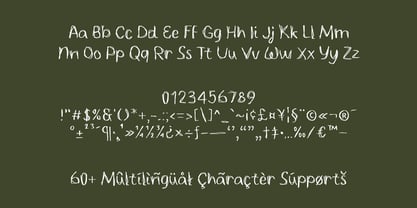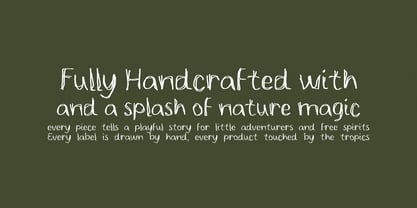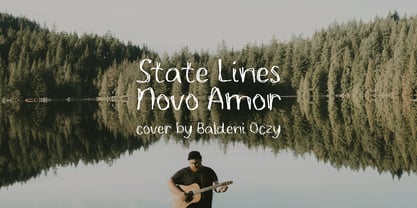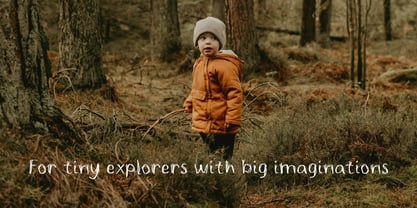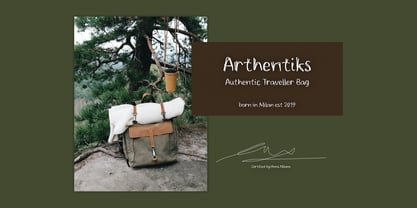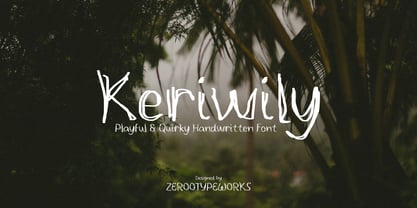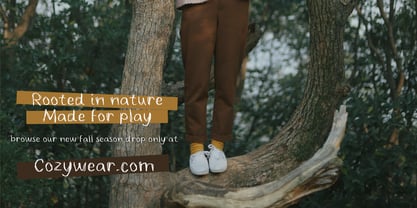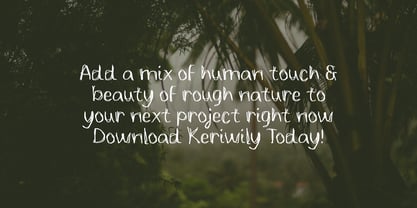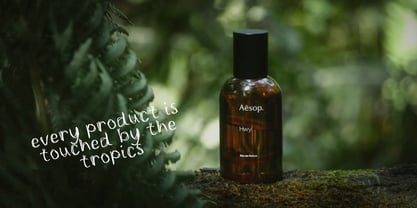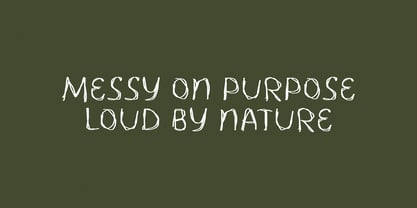
ZRTW Keriwily
by Zerootypeworks
The ZRTW Keriwily Font Family was designed by Gumilang Anggara Ruslan and published by Zerootypeworks. ZRTW Keriwily contains 1 styles. More about this family
Keriwily is a playful handwritten font that brings a natural, organic vibe to your designs. Its irregular strokes and free-flowing style are perfect for nature branding, lifestyle blogs, product packaging, and children’s content. Whether you're creating for Instagram, a cozy book cover, or eco-friendly labels, Keriwily gives your project a heartfelt, human voice that stands out in a polished digital world.
Designers: Gumilang Anggara Ruslan
Foundry: Zerootypeworks